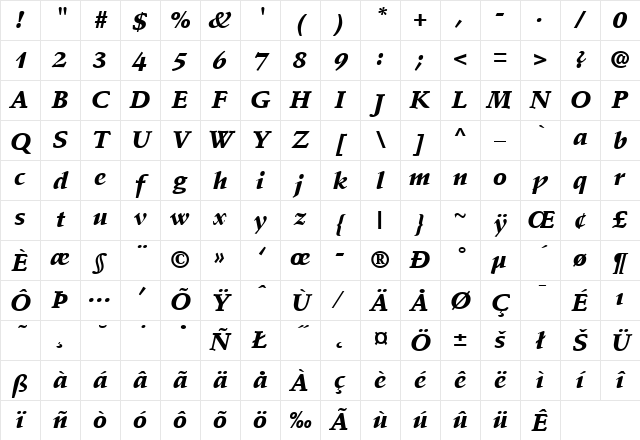
StempSchBlaIta Regular
Design Context for StempSchBlaIta
StempSchBlaIta is a composed and adaptable typeface that performs quietly and consistently across a wide range of design contexts.
Pro Tip: Use StempSchBlaIta in both headline and body roles to test its range before committing to a single application.